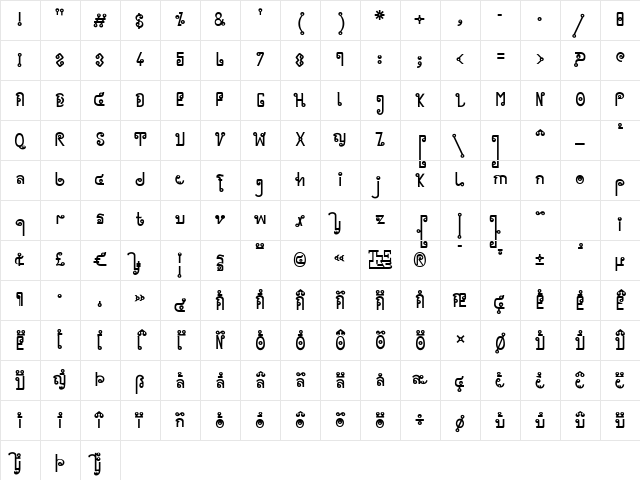
Complete Cyclin Regular glyph index. Displaying only characters natively supported by Cyclin Regular font.
Cyclin is a composed and adaptable typeface that performs quietly and consistently across a wide range of design contexts.